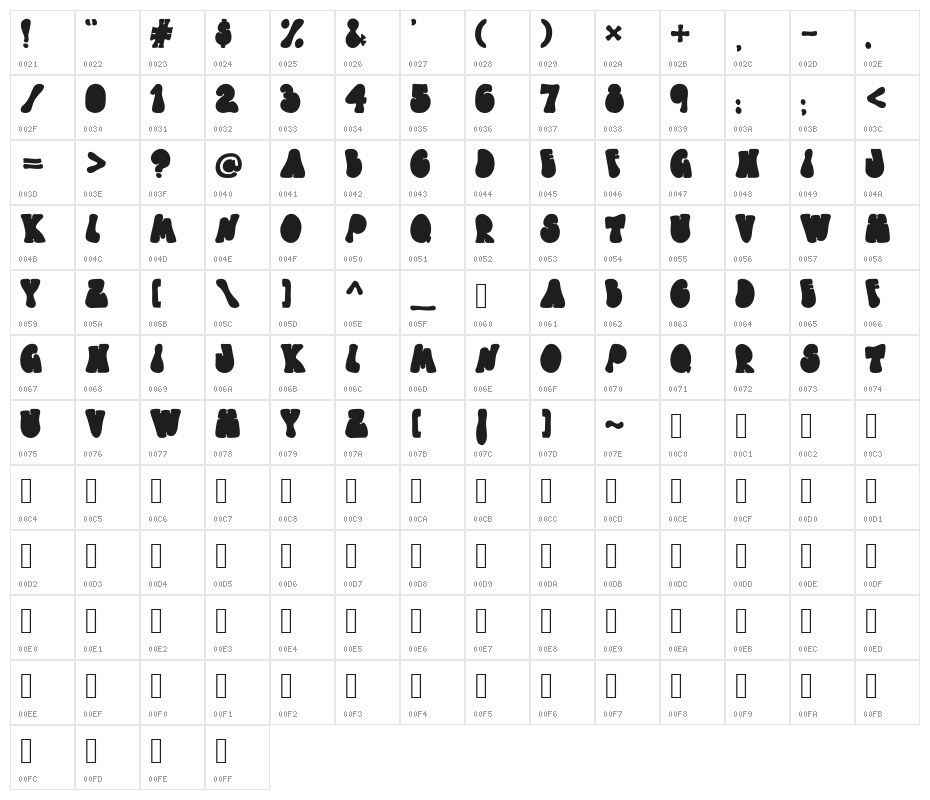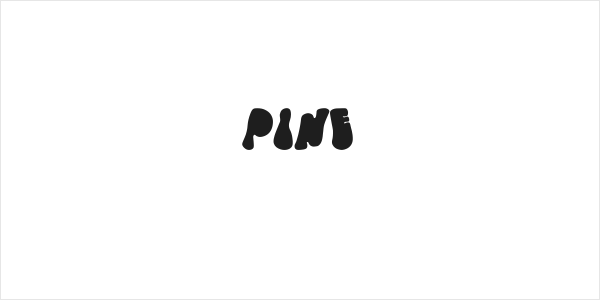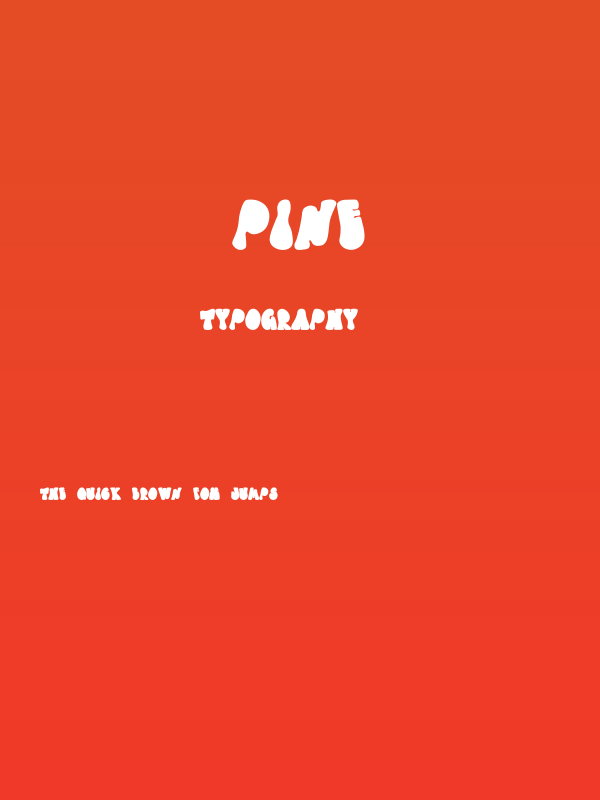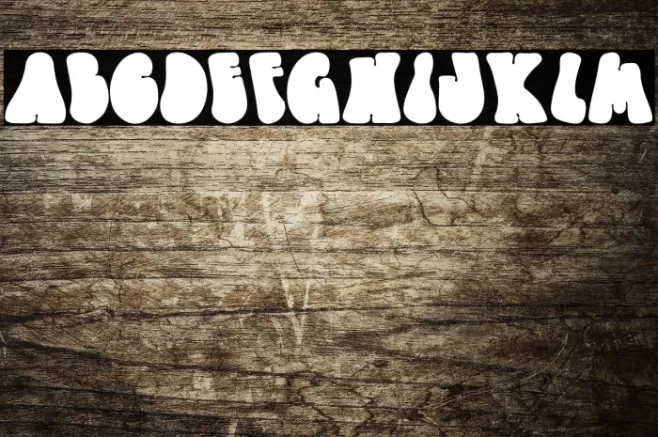
Pine Font
Pine Description
This font features a bold, playful design with exaggerated, rounded shapes that give it a bubbly and whimsical appearance. The characters are heavily weighted, with a consistent thickness throughout, creating a strong visual impact. The letters are wide and occupy a substantial amount of space, making them ideal for attention-grabbing headlines or display purposes. The style is reminiscent of retro or vintage aesthetics, often seen in designs that aim to evoke a sense of fun and nostalgia. The numbers and special characters maintain the same playful and bold characteristics, ensuring consistency across all glyphs.
| Overall Style | Retro, Playful |
| Proposed Projects | Ideal for children's book covers, playful branding, retro-themed posters, and eye-catching headlines. |